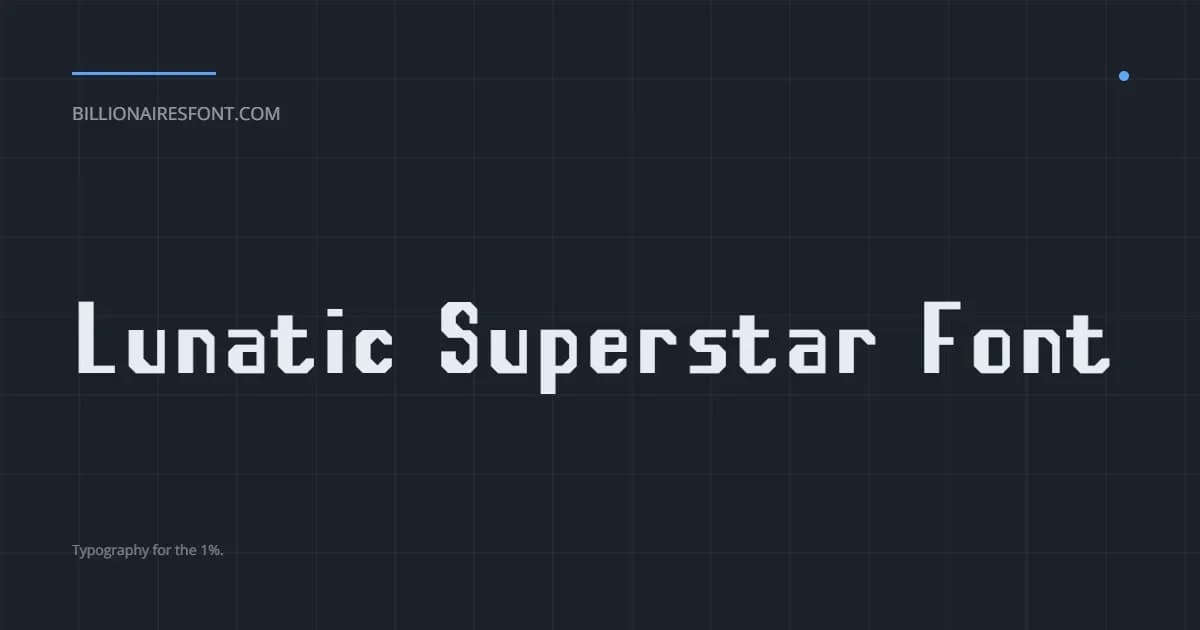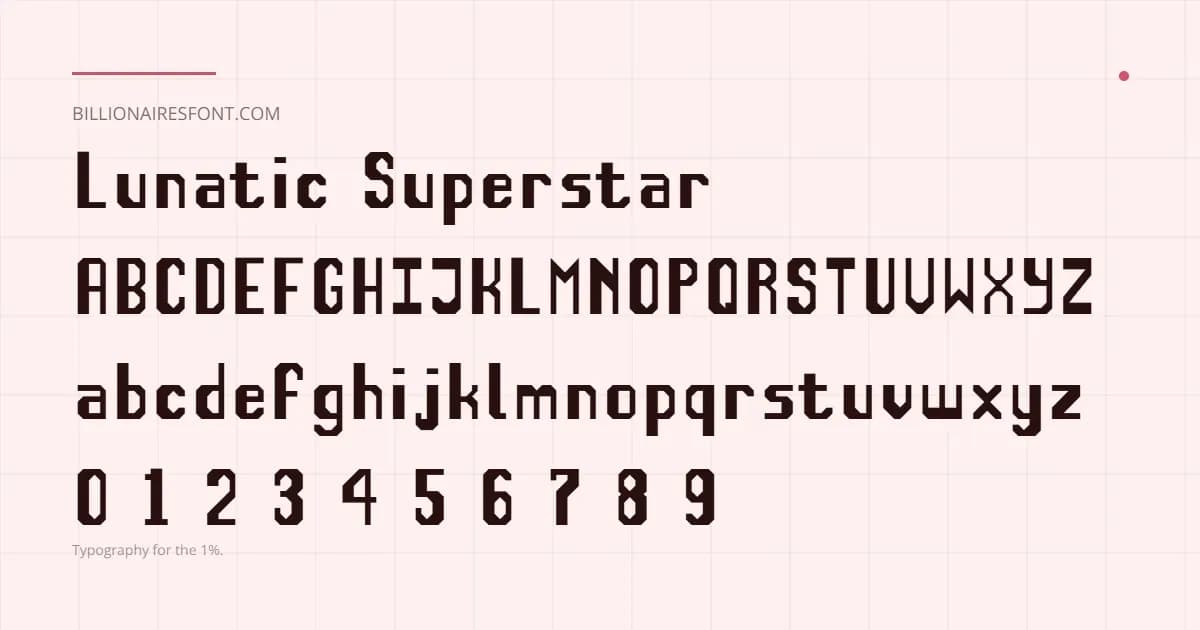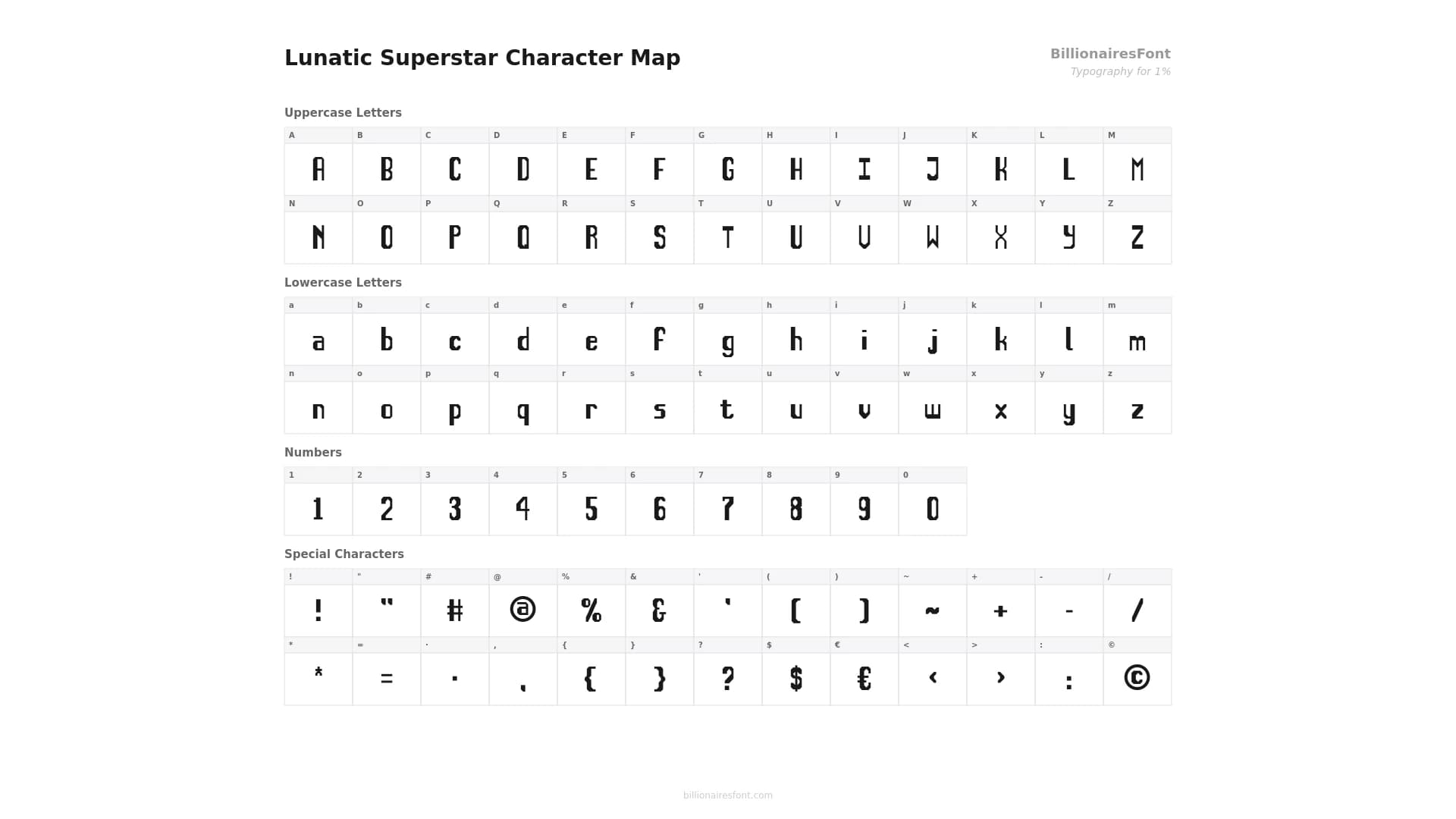
Heaven Castro drew Lunatic Superstar in BitFontMaker2, a browser-based pixel font editor that nobody expected to produce a usable display typeface . The original pixel outlines were based on interstellar spaceship lettering, and Castro later rebuilt the font outside the tool, sharpening the angular geometry and adding accented characters for multilingual coverage. The result is a single-weight sans-serif where every stroke meets at hard, geometric angles rather than curves, giving it a mechanical, sci-fi edge that reads like cockpit instrumentation or rave event branding. It covers English, French, German, Spanish, Portuguese, Turkish, Polish, Czech, Hungarian, Romanian, Swedish, and over a dozen more Latin-script languages. Lunatic Superstar is available here as a free download in TTF, WOFF, and WOFF2 formats for both personal and commercial use. Set it at poster and headline sizes where the angular cuts stay sharp. It loses legibility fast below 18px, so keep a clean body font underneath. For a different futuristic tone with fixed-width spacing, see Space Mono in the monospace collection . The Font Converter handles format switching if you need WOFF2 for web embedding.